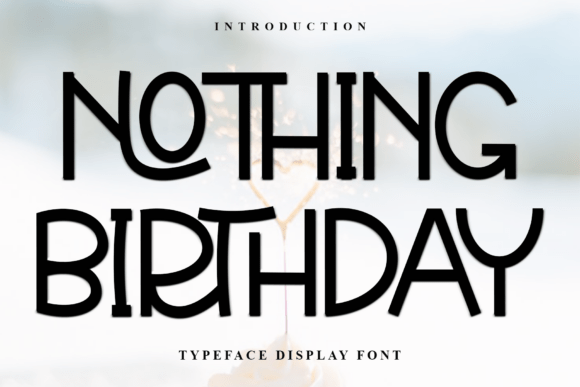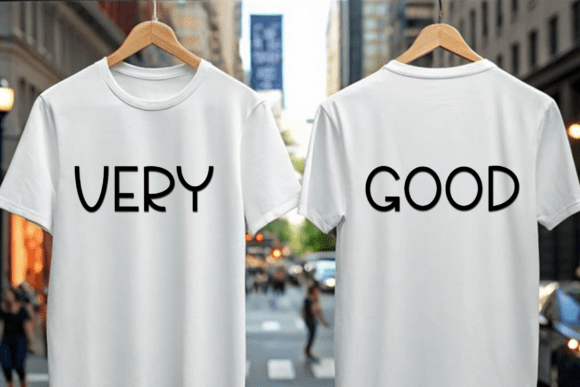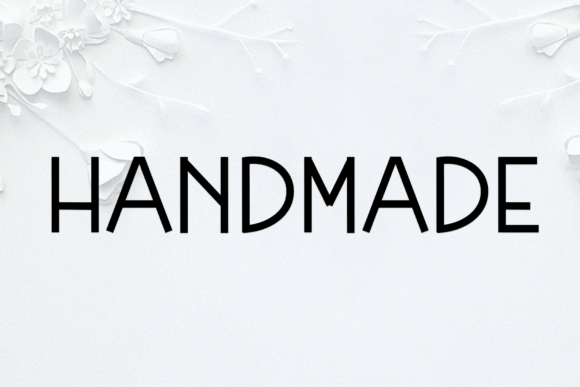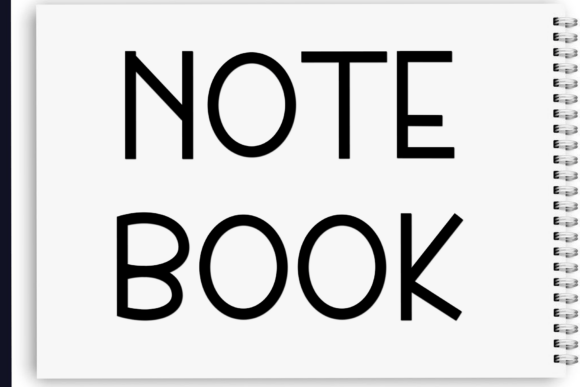
Nothing Birthday Font
About the Nothing Birthday Font
The Nothing Birthday Font offers a perfect balance of form and function for your design needs. Nothing Birthday is a festive and merry typeface that captures the spirit of the holiday season. With its decorative elements and whimsical flair, it adds a touch of enchantment to your designs. Perfect for greeting cards, gift tags, and holiday-themed projects, this font brings a cheerful and nostalgic ambiance to your words. Let your typography shine with the magic of Beautiful Font!
Nothing Birthday Font’s playful, decorative style makes it ideal for headlines, short celebratory messages, and branding elements where a touch of whimsy is desired. It excels in projects like invitations, posters, and packaging for products targeting a younger or festive market. However, its ornate nature makes it unsuitable for body text or UI elements; the intricate details would likely hinder readability in extended use.
Consider pairing Nothing Birthday with a clean sans-serif like Open Sans for a balanced contrast, or a classic serif such as Garamond for a more traditional feel. For a more modern approach, a geometric sans-serif like Montserrat could work well. Avoid pairing it with other highly decorative fonts, as this would create visual overload.
The font’s overall personality is cheerful and nostalgic, conveying a sense of fun and festive celebration. It’s best suited to brands and projects that wish to project a lighthearted, friendly, and approachable image.
Nothing Birthday Font Usage Examples
Nothing Birthday Font Example